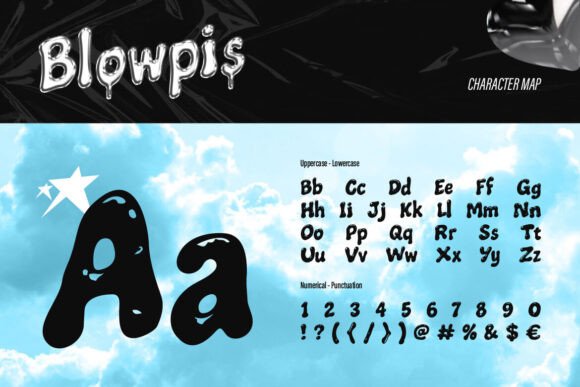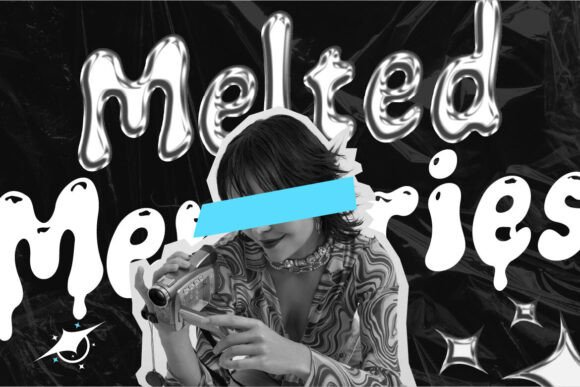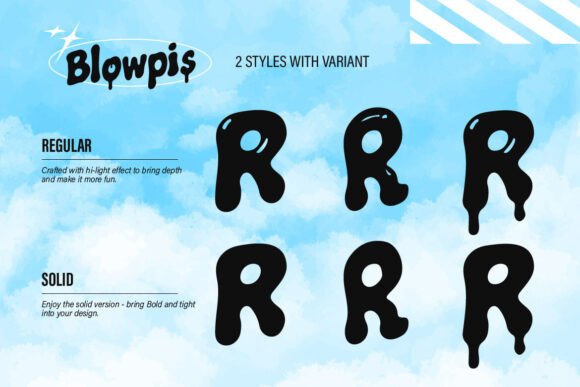
Introduction to Blowpis Font
Blowpis is a playful and edgy display font that melts the ordinary.
Inspired by dripping textures and bubbly shapes It comes in 2 unique style: Regular and Solid.
Key Features of Blowpis Font
Why Choose Blowpis Font?